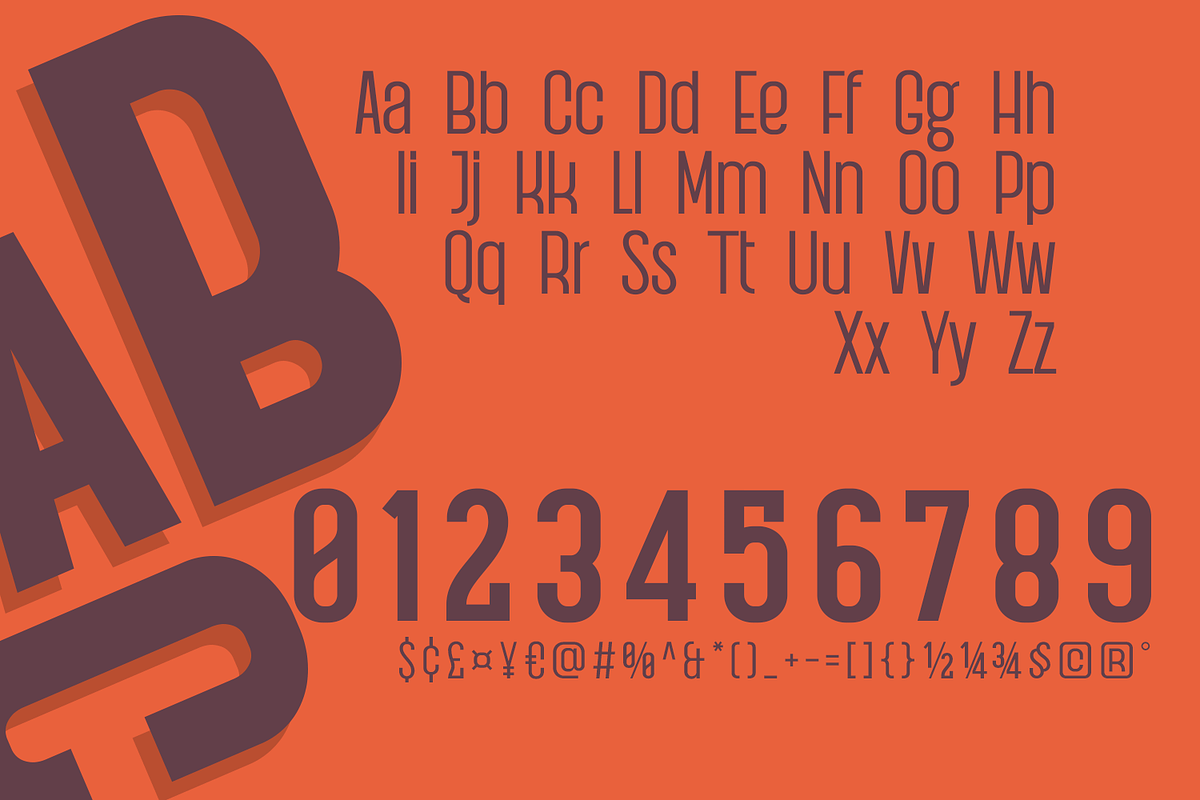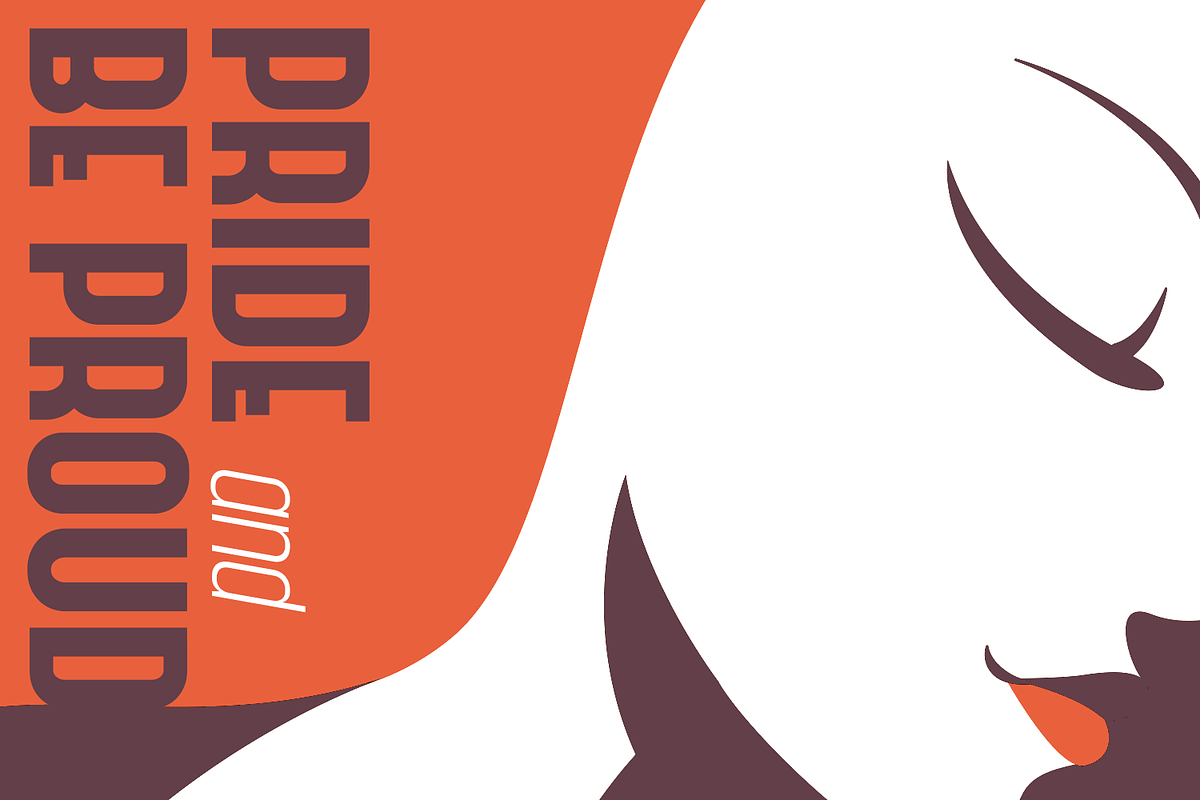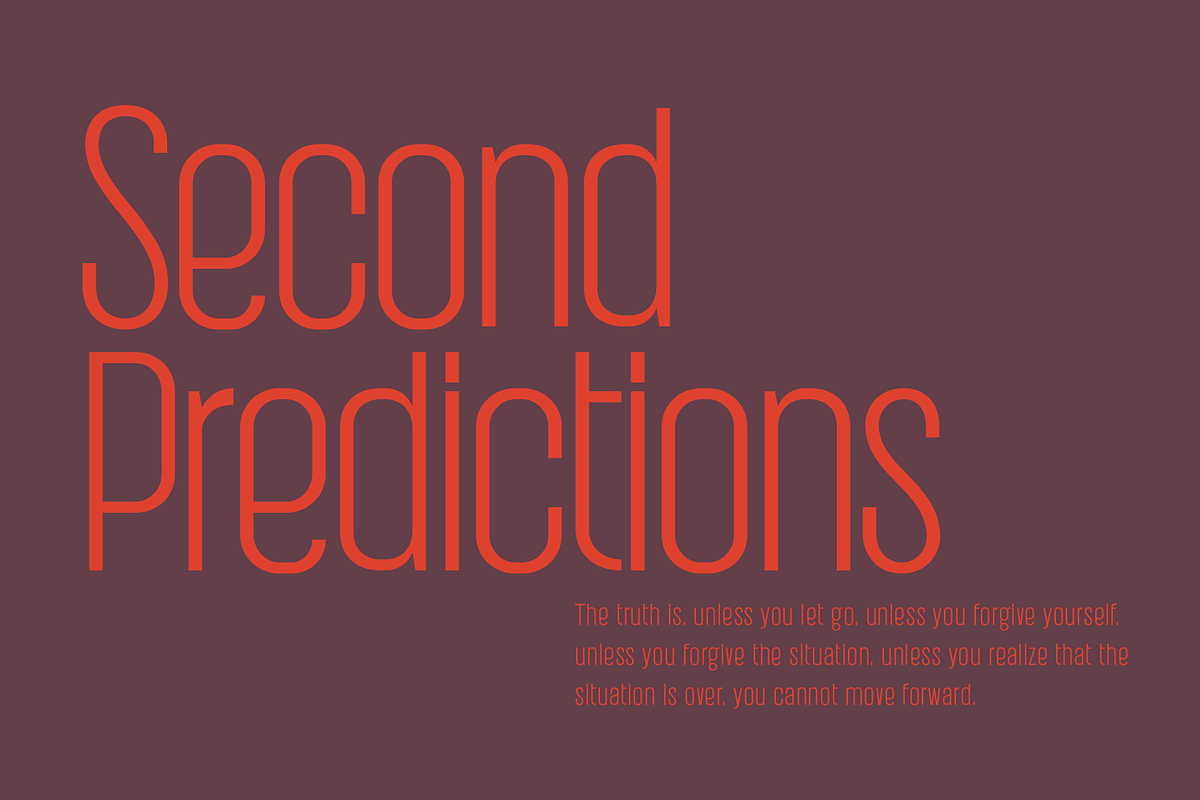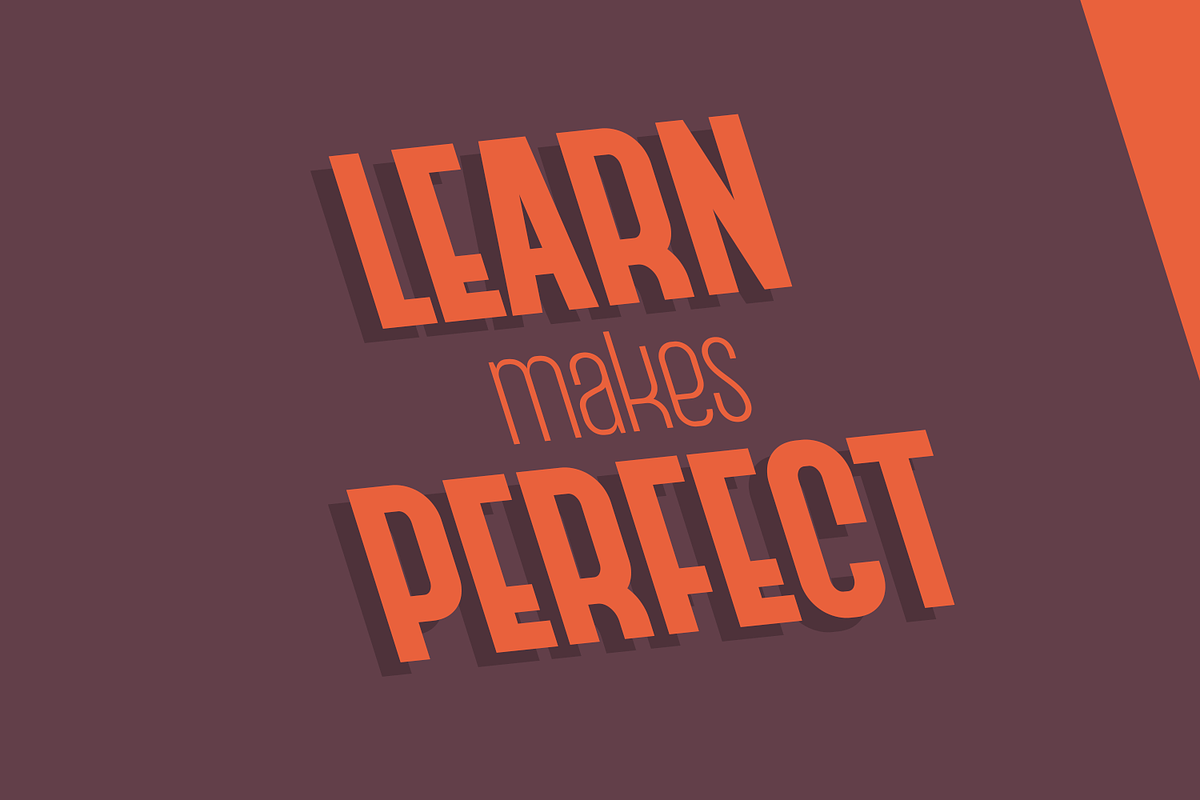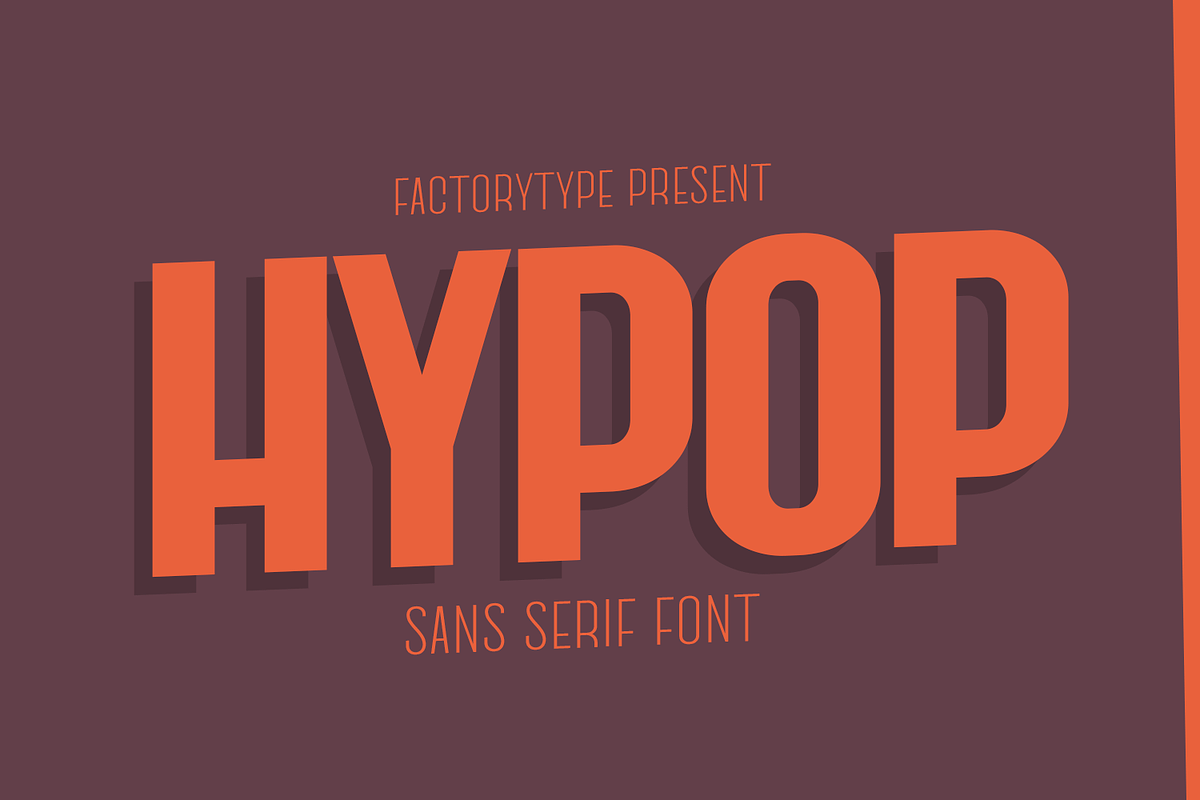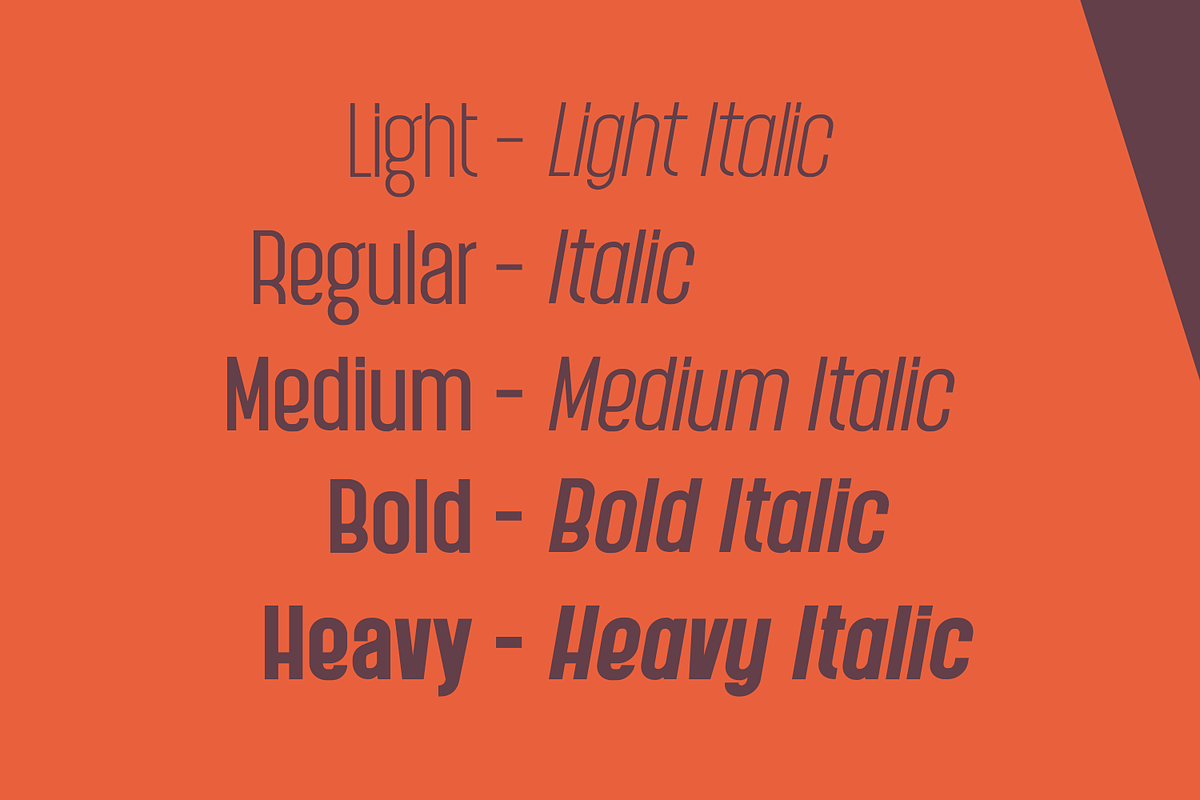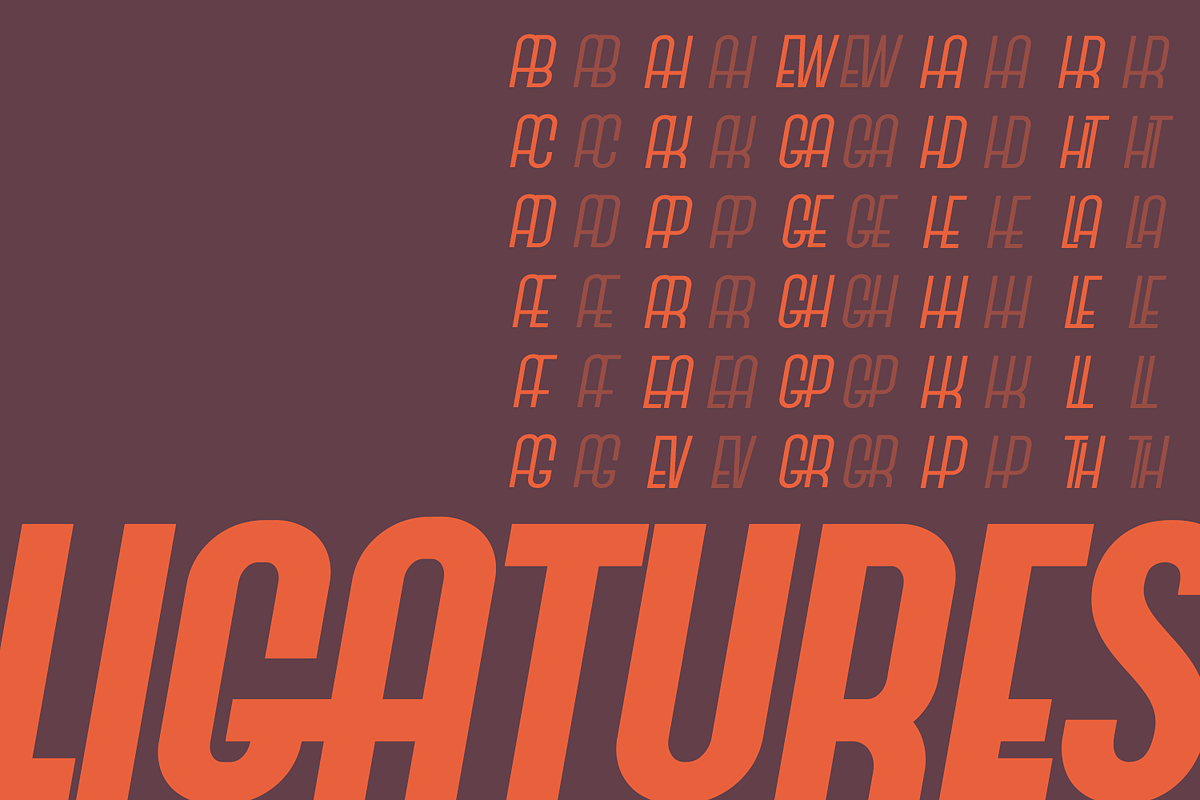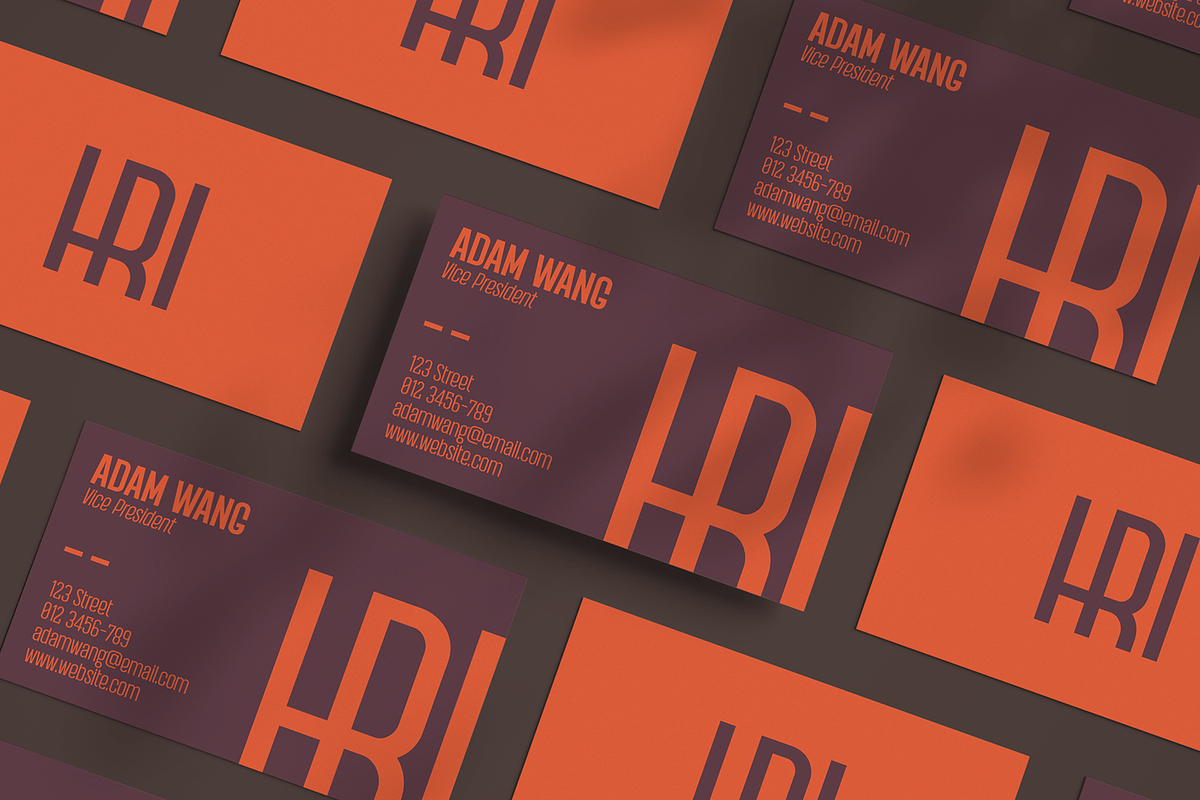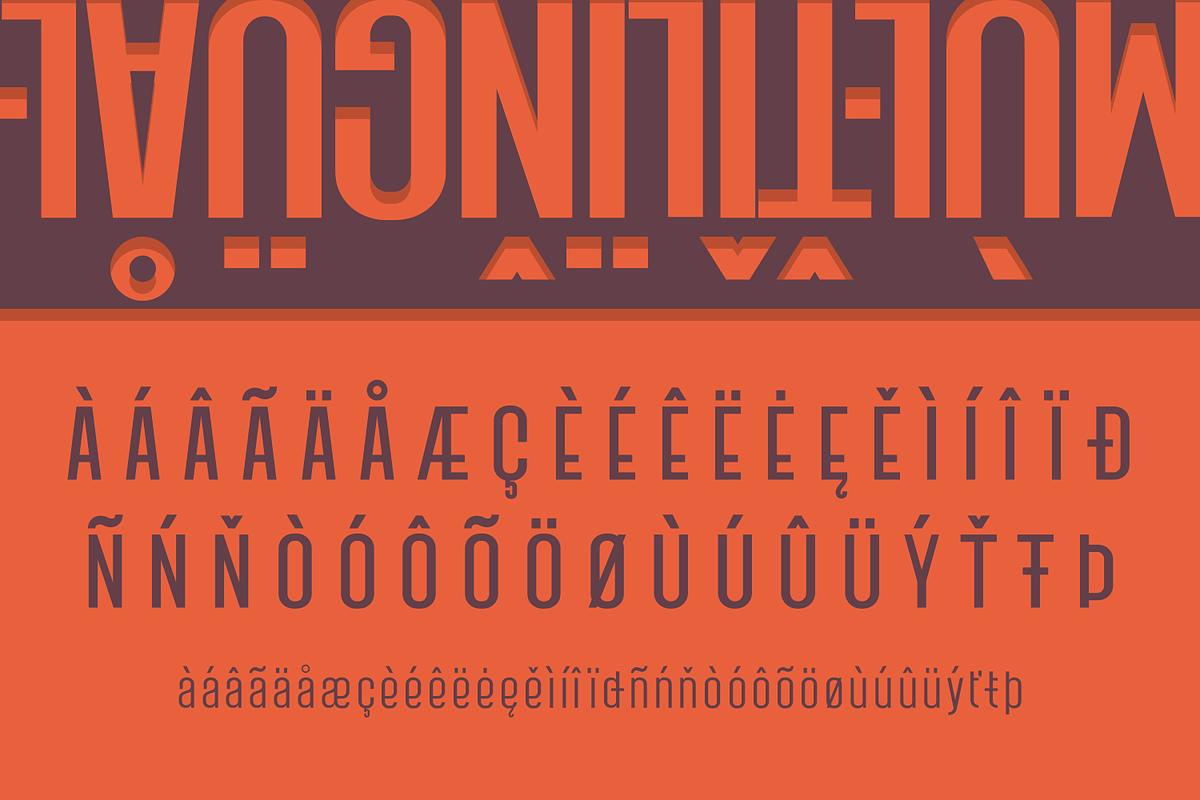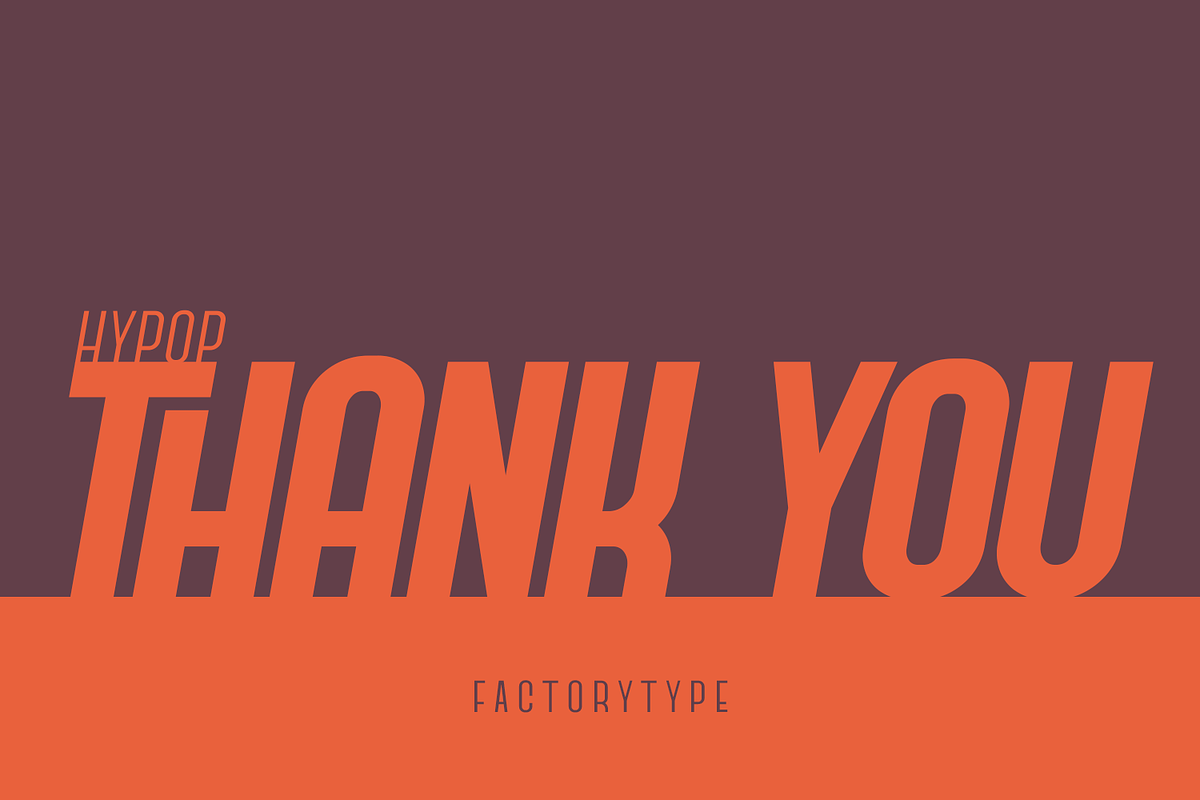
Hypop - A Nostalgic Sans Serif
HYPOP is a strong and condensed sans serif font family with a nostalgic vibe. Combining retro and minimalist elements resulted in an elegant design. The different weights give you a lot of options when it comes to choosing the right typographic color for your project.
- 5 Weights (Thin, Light, Regular, Medium, Bold, Black)
- 2 Styles (Regular and Italic)
- Stylistic Ligatures glyphs
- Multilingual Support for ä ö ü Ä Ö Ü ...